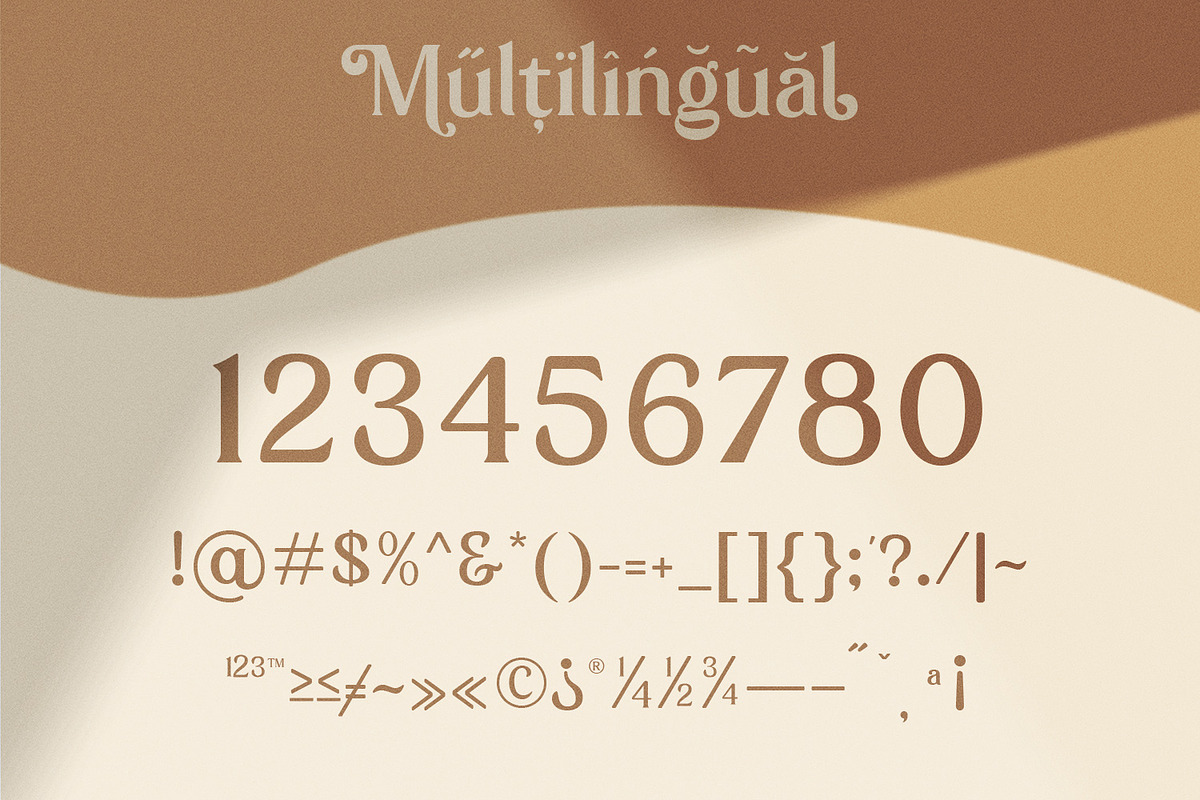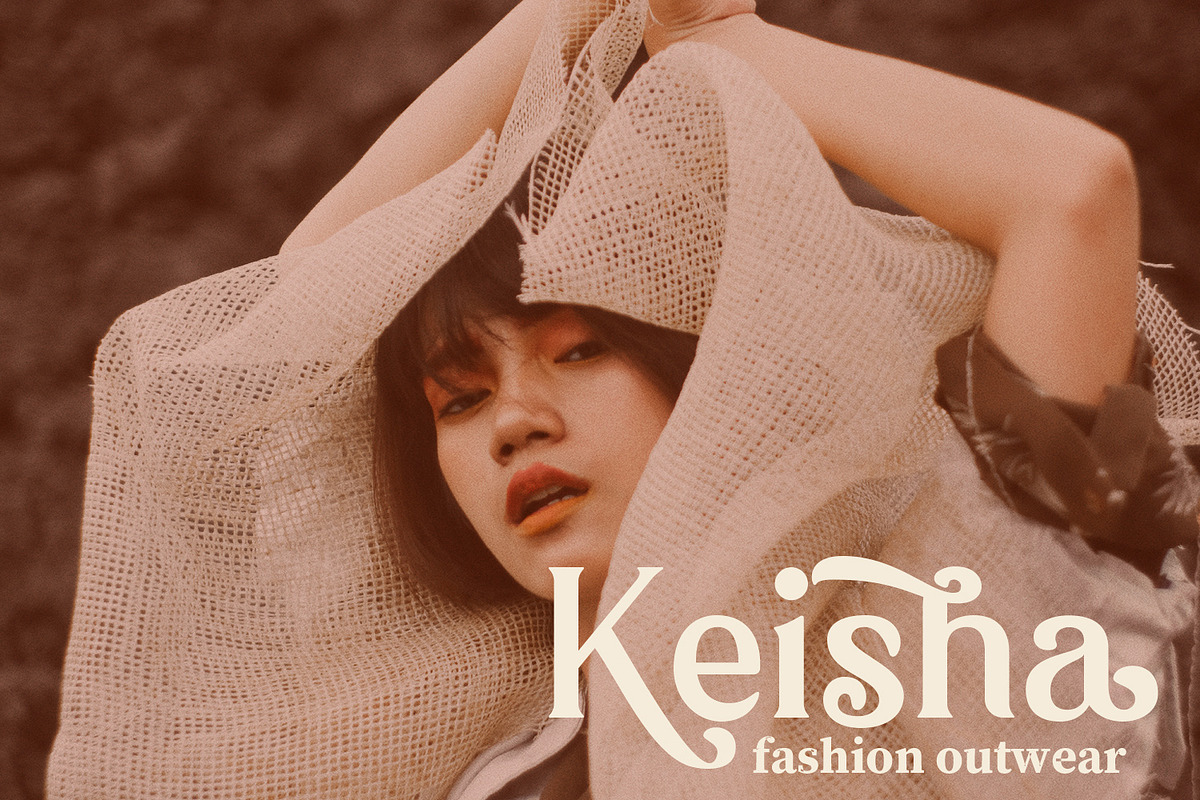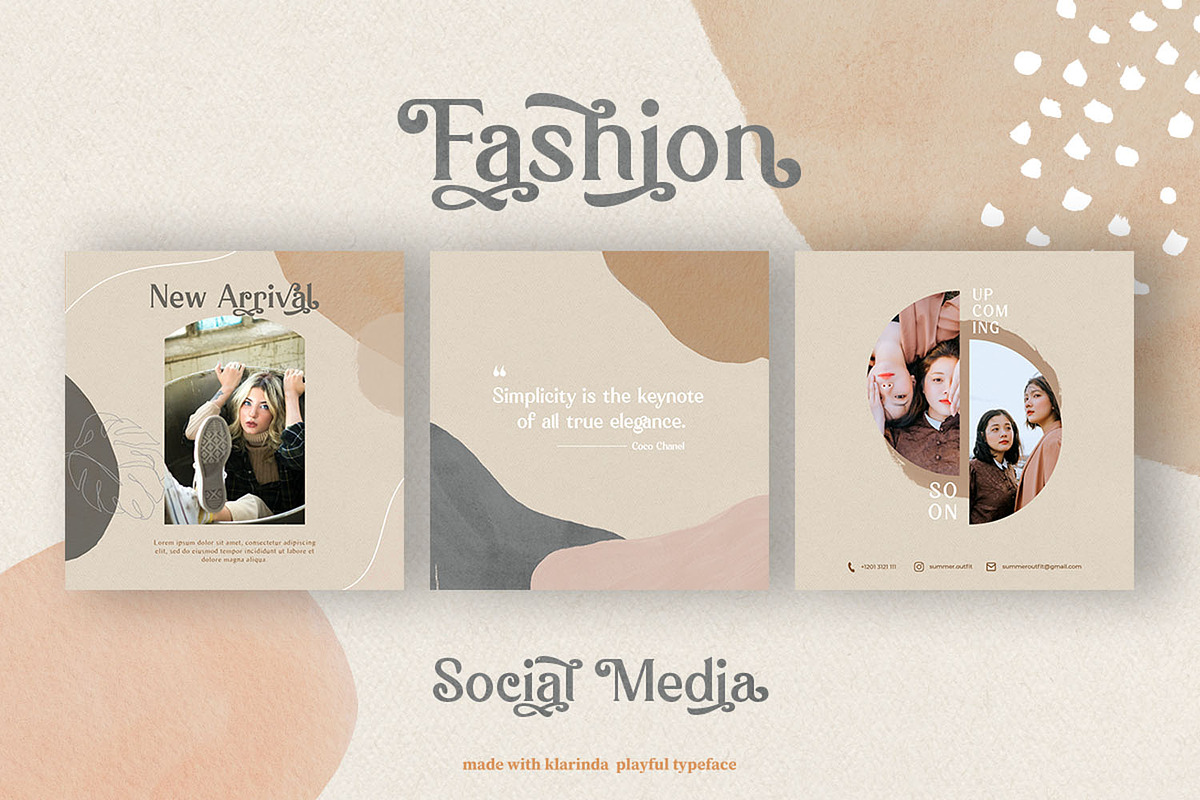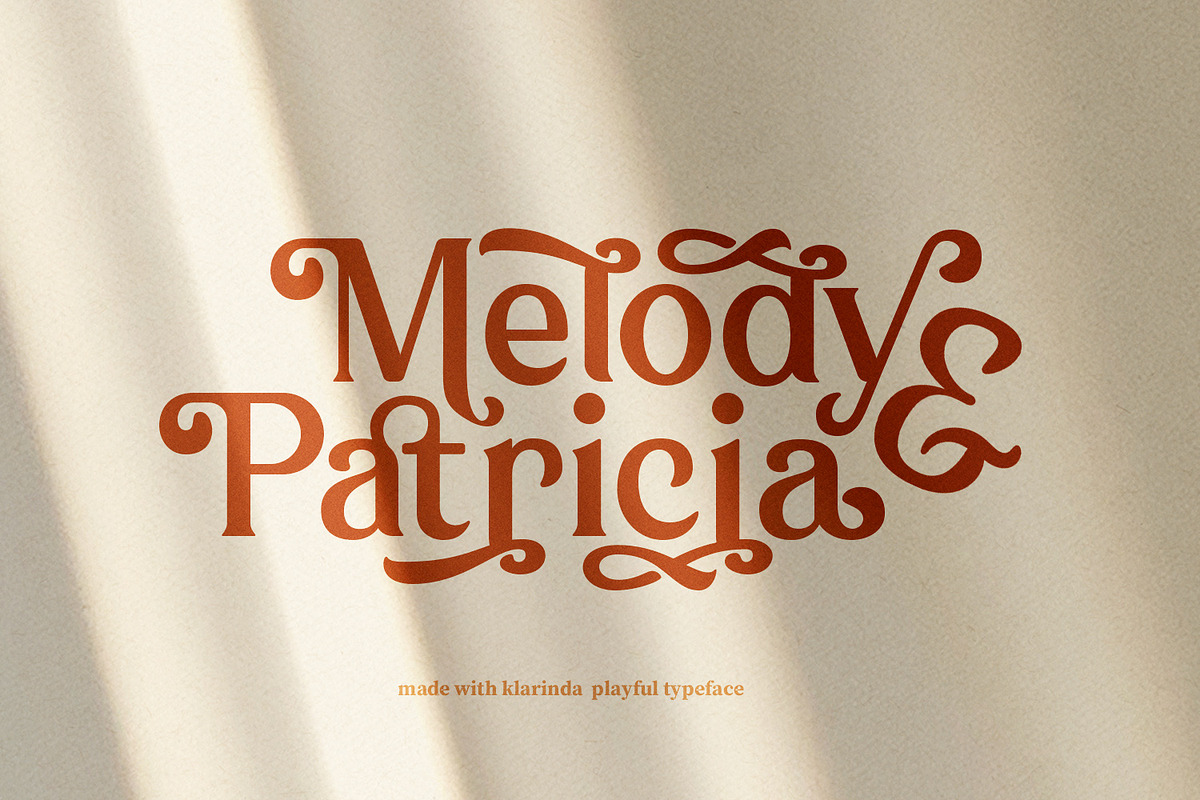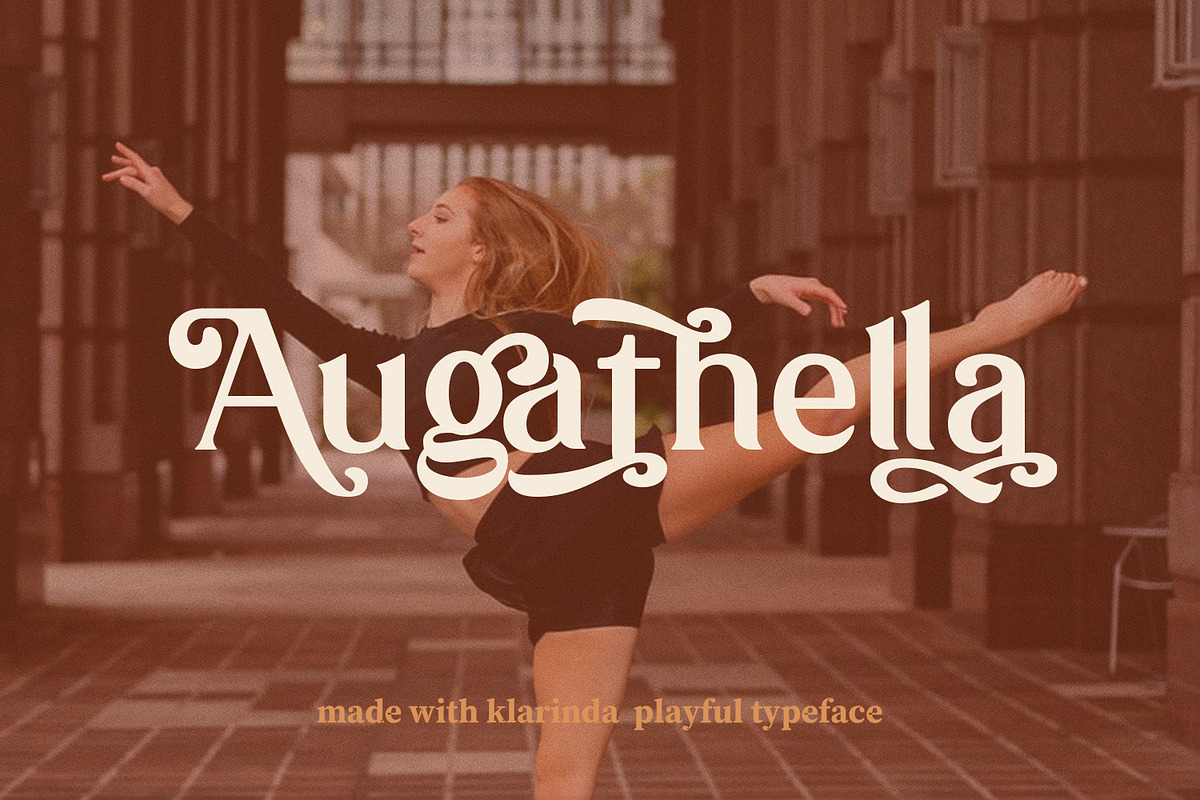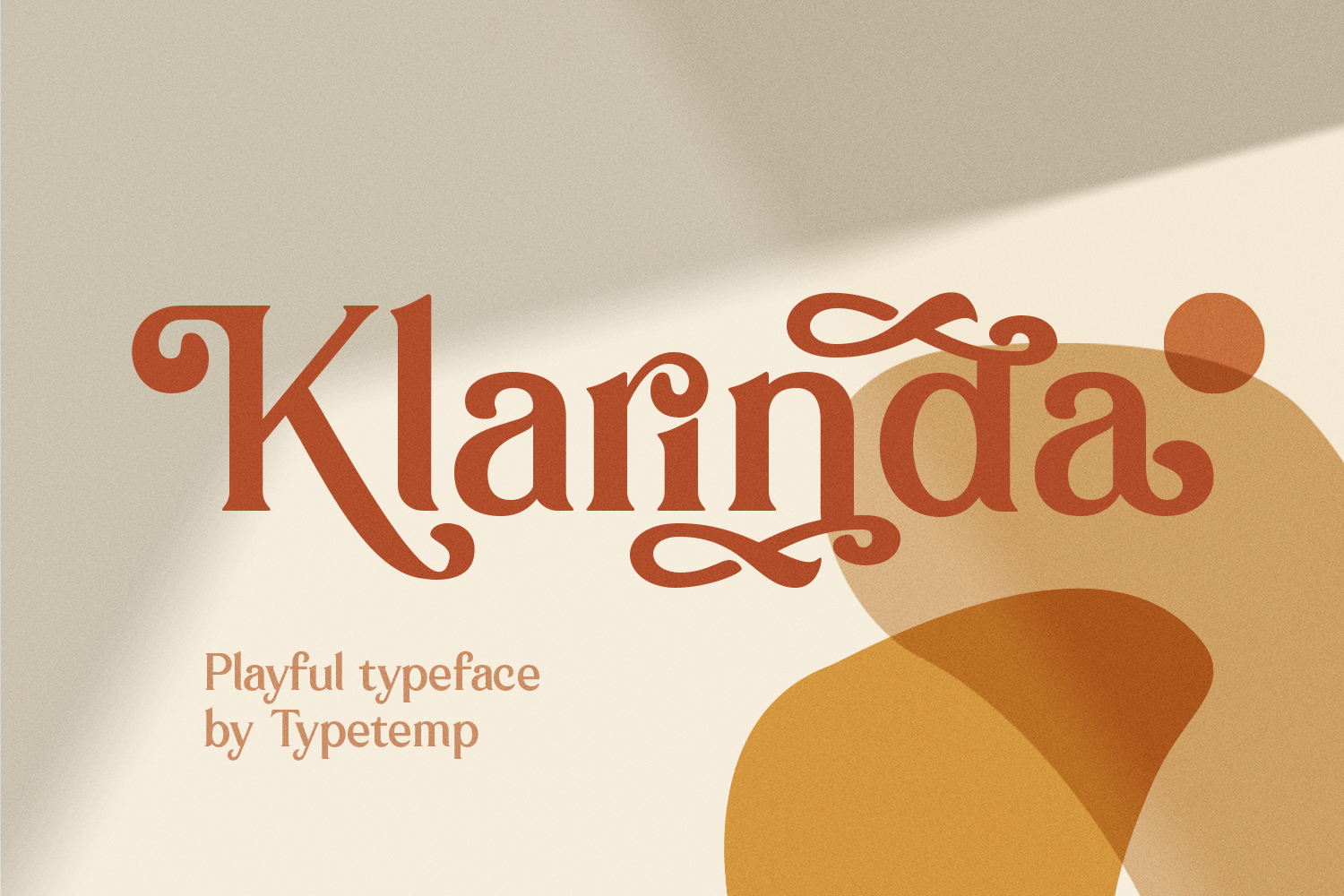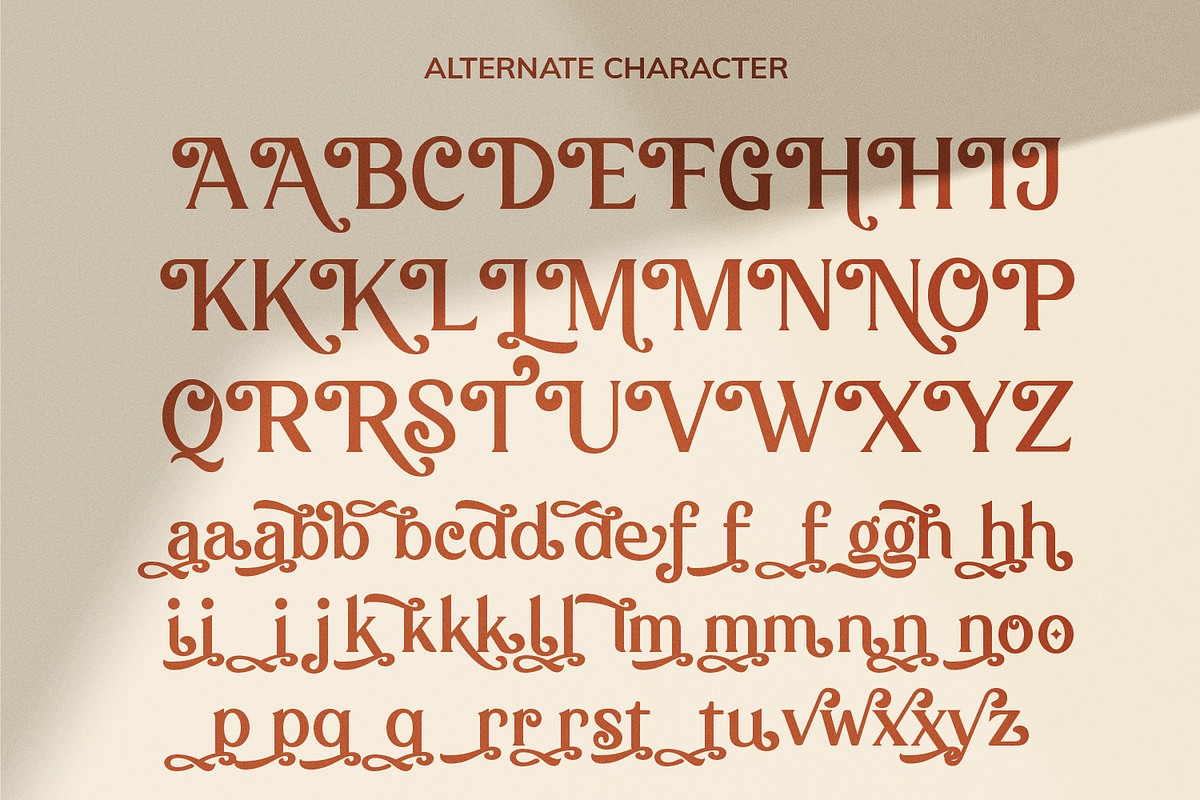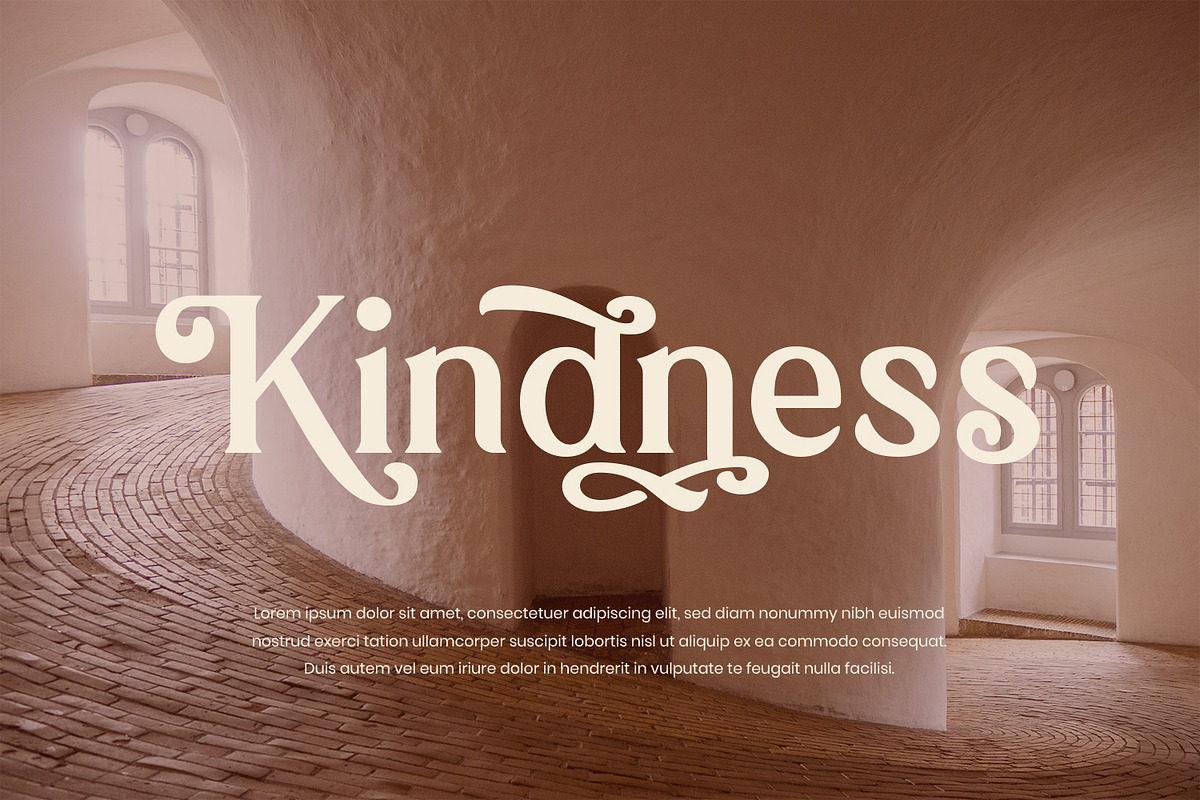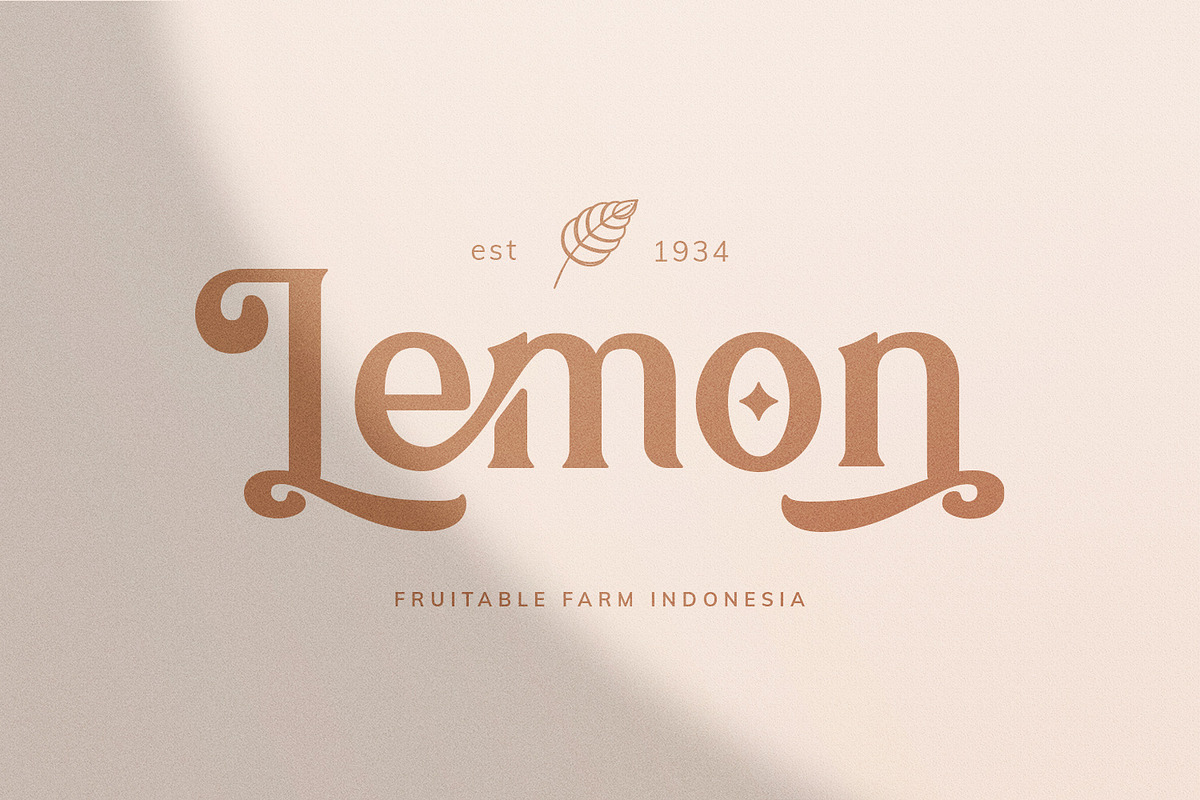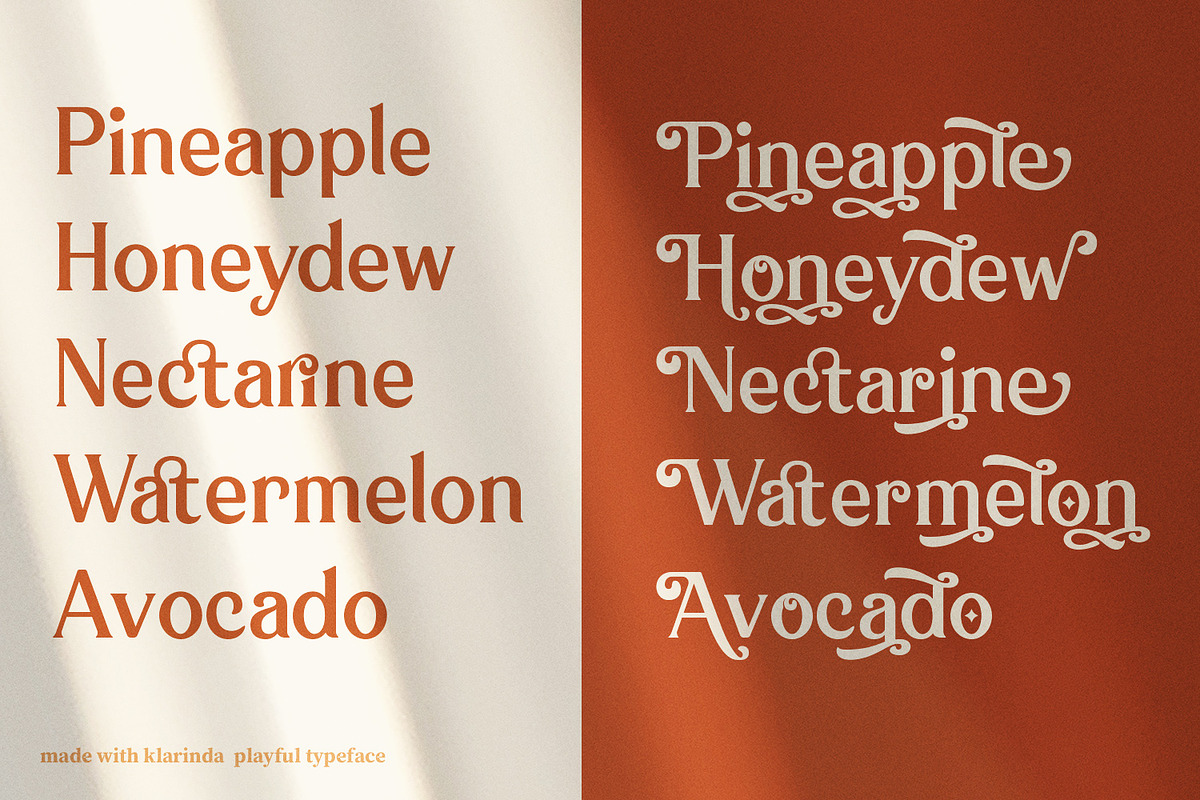
Klarinda Playful Serif Font
Klarinda Playful Serif a playful-typeface style serif with alternatives and ligatures that create stunning logos, quotes, posts, blog posts. branding projects, magazine imagery, wedding invitations, and much more.
- Stylistic Alternates & Ligatures
- Multilanguange